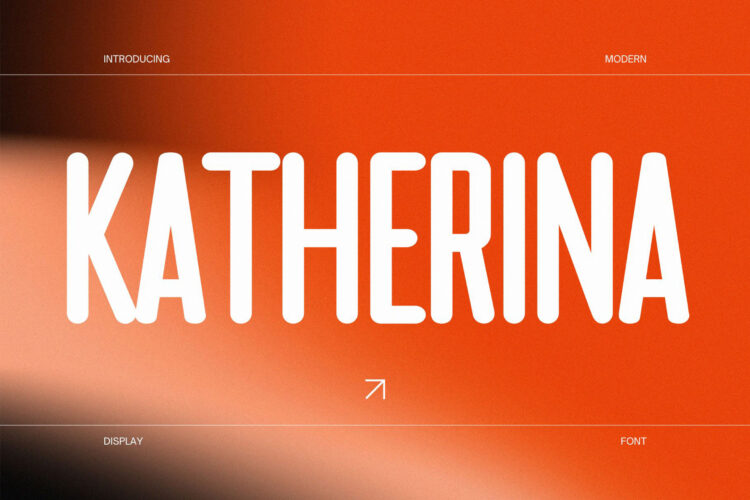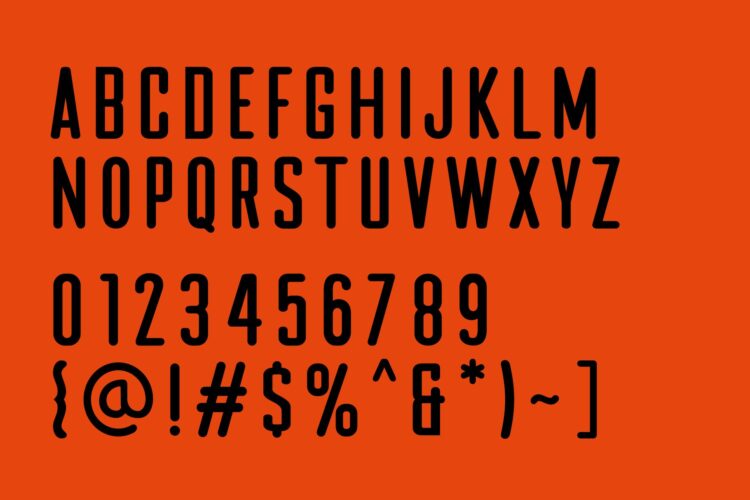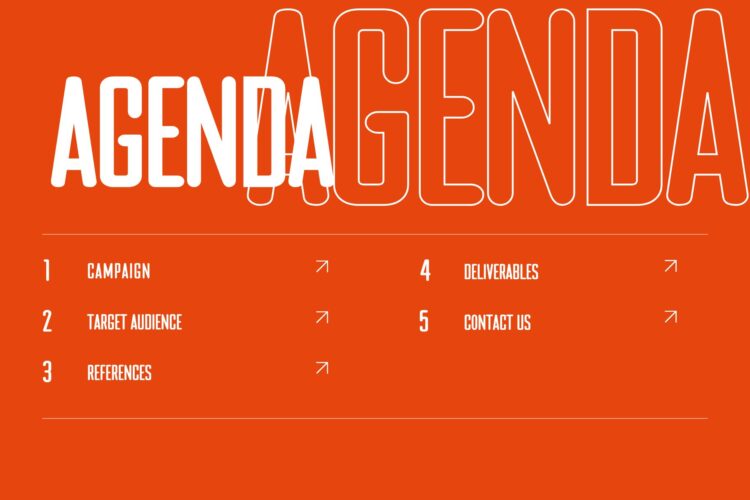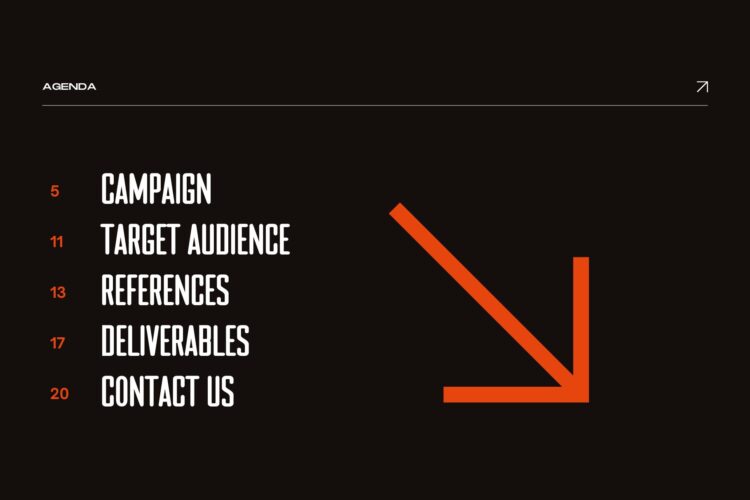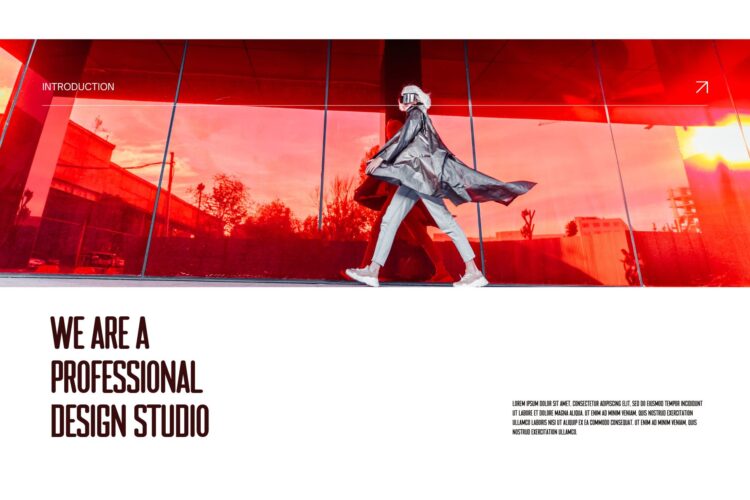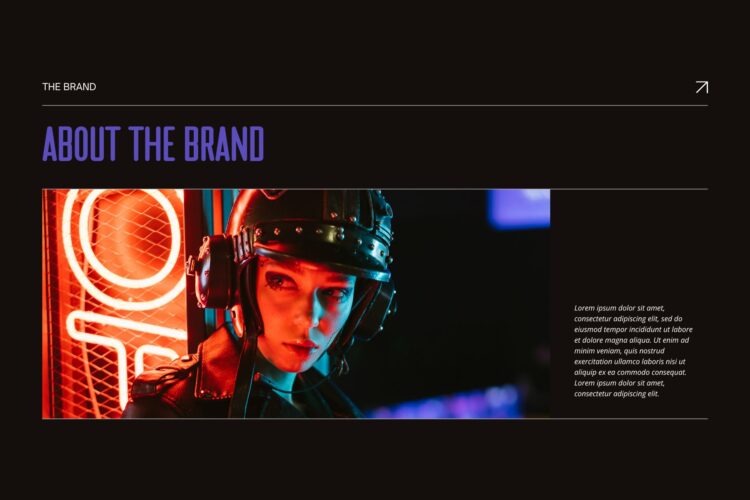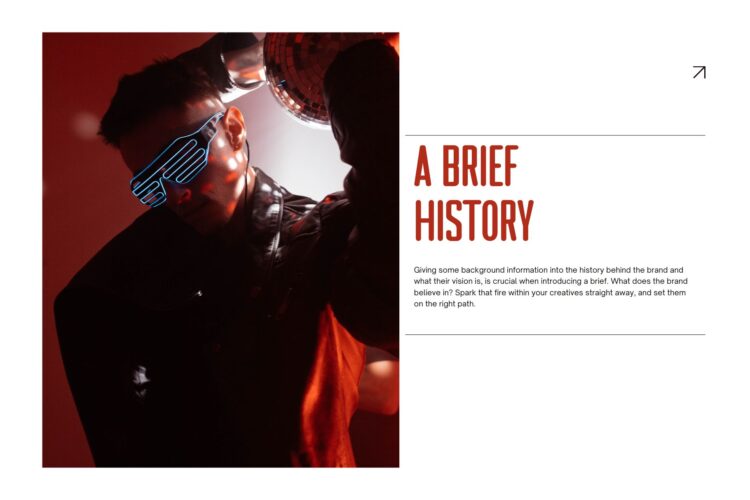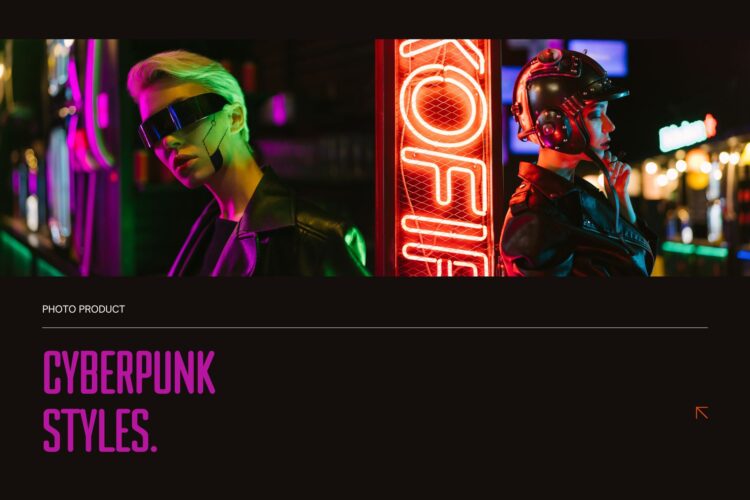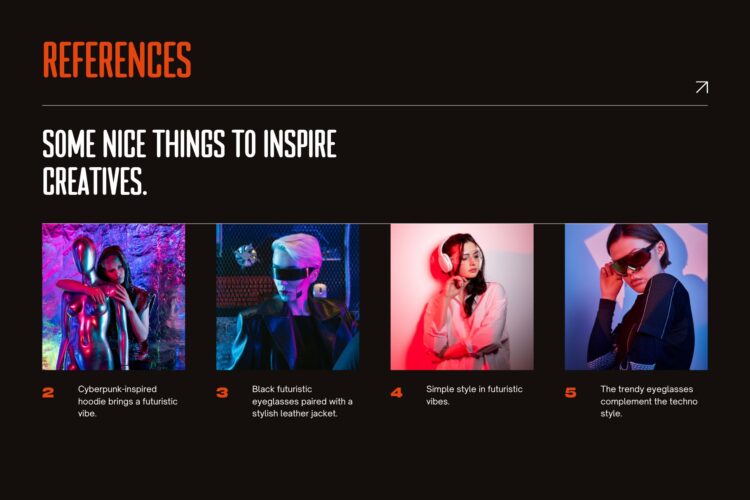
Introducing Katherina – Modern Condensed Sans.
Katherina is a modern and simple font, best used as a display for headings, logos, branding, magazines, product packaging and invitations.
Katherina – Modern Condensed Sans Serif